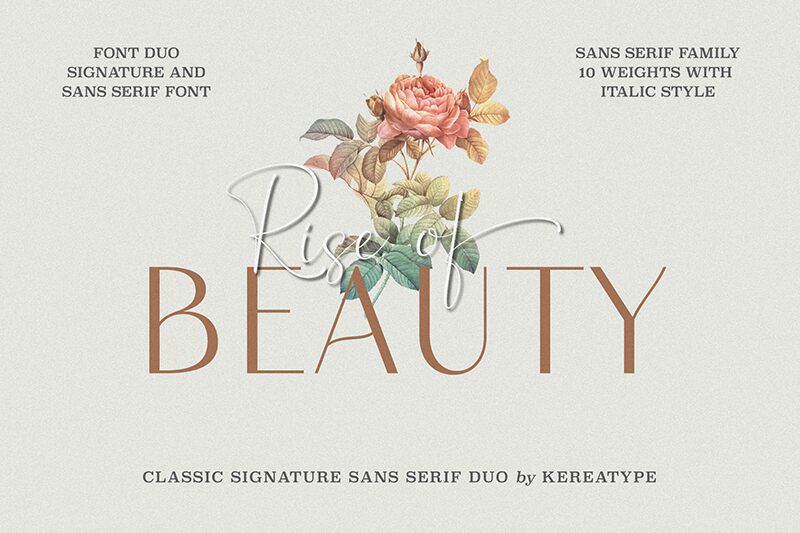
RiseofBeauty-ThinItalic
Rise of Beauty Thin Italic is a stunning ultra-light sans serif font designed by Kereatype Studio. Its sleek and elegant design makes it perfect for projects that require a touch of sophistication, such as high-end fashion magazines, beauty blogs, or luxury branding. With its thin and delicate strokes, Rise of Beauty Thin Italic is also ideal for wedding invitations or other formal invitations where a refined and graceful font is needed. Its italic style adds an extra layer of elegance to any project, making it the perfect choice for designers looking to create something truly beautiful and unique.